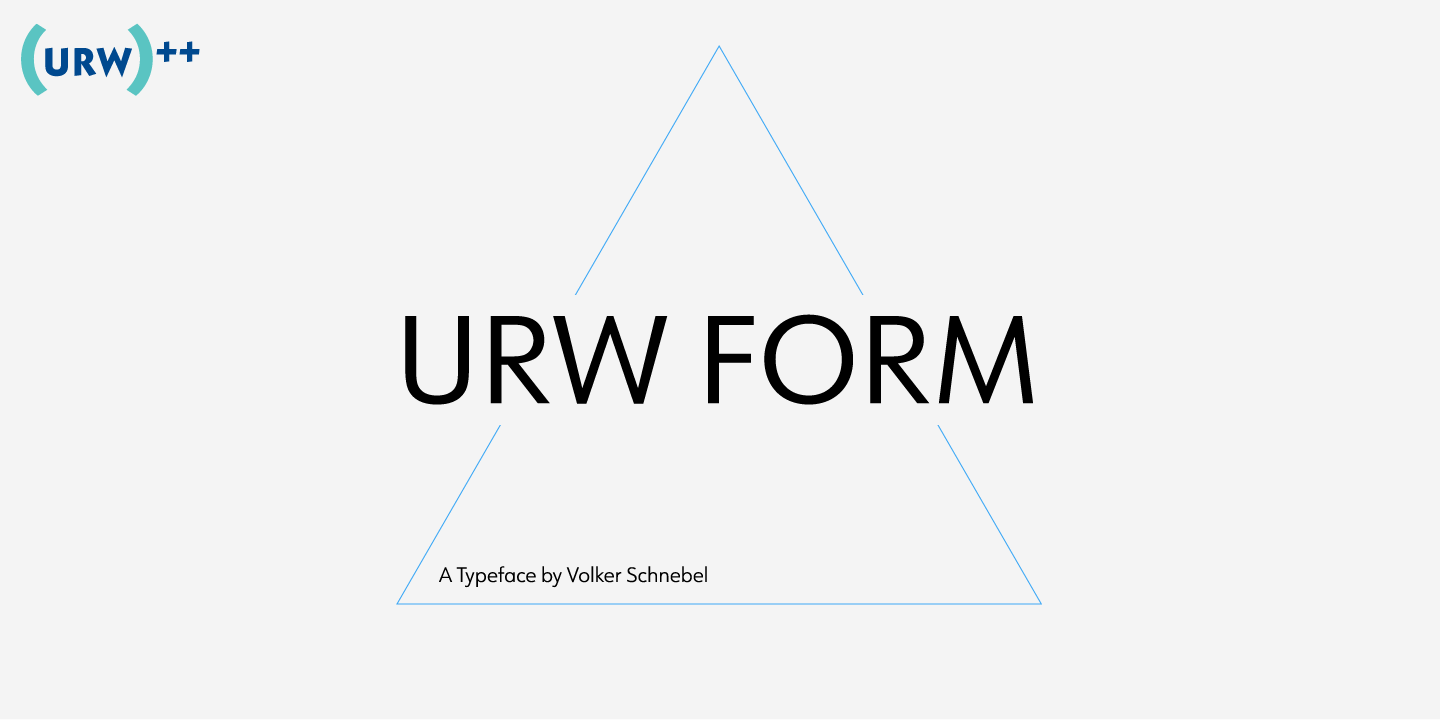
URW Form Font is a clean, modern sans-serif typeface designed for clarity and functionality. Ideal for corporate branding, editorial design, user interfaces, and signage, it offers excellent readability across all mediums.
What makes URW Form Font Free Download so exciting is its balanced geometry and neutral style, making it incredibly versatile for a wide range of design applications without overpowering other visual elements.
The URW Form Font family typically includes multiple weights such as Light, Regular, and Bold, allowing designers to establish clear typographic hierarchy and emphasis.
Whether you’re crafting reports, websites, logos, or marketing materials, URW Form Font Free Download ensures your projects maintain a professional and polished appearance.